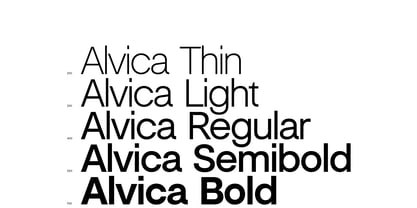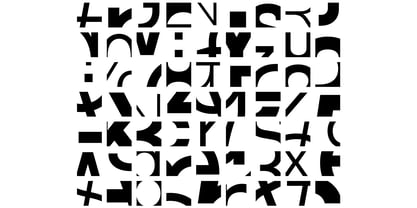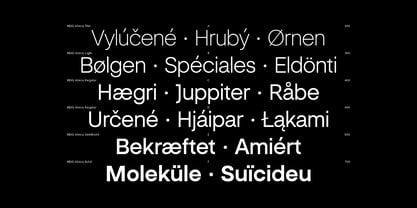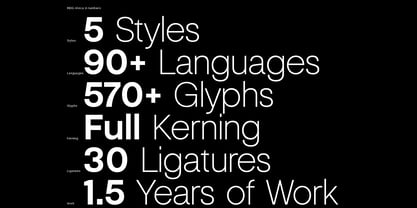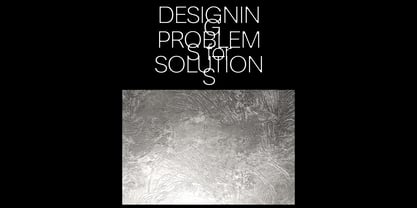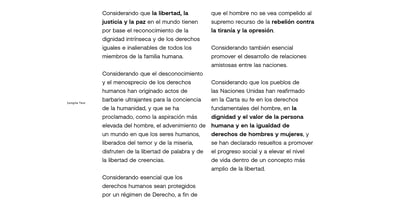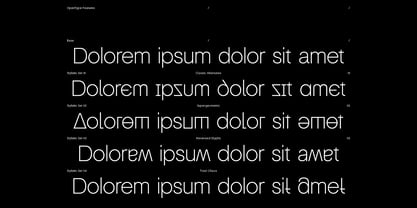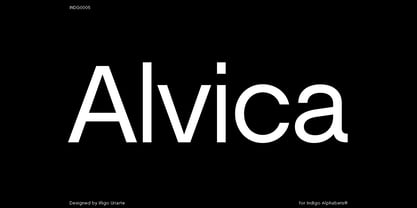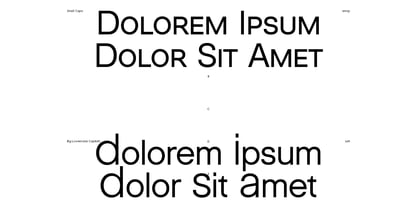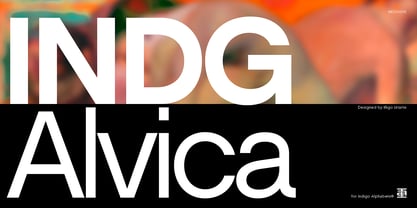
INDG Alvica
por Iñigo Uriarte
La familia tipográfica INDG Alvica fue diseñada por Iñigo Uriarte y publicada por Iñigo Uriarte. INDG Alvica contiene 5 estilos y opciones de paquete familiar. Más información sobre esta familia
Swiss-knife (you get it?), everyday use, highly versatile, all-in-one typographic familly.
Sober in appearance, but with quirky stylistic alternates.
Originally conceived just to fulfill my personal design needs, I decided to share it with the world now. I works well both in big and small sizes.
OpenType features:
liga: Standard ligatures
dlig: Discretionary ligatures
salt: Big lowercase
ss01: Classic alternates
ss02: Supergeometric
ss03: Reversed glyphs
ss04: Total chaos
ss05: Big lowercase alternates
zero: Slashed zero
smcp: Small Caps